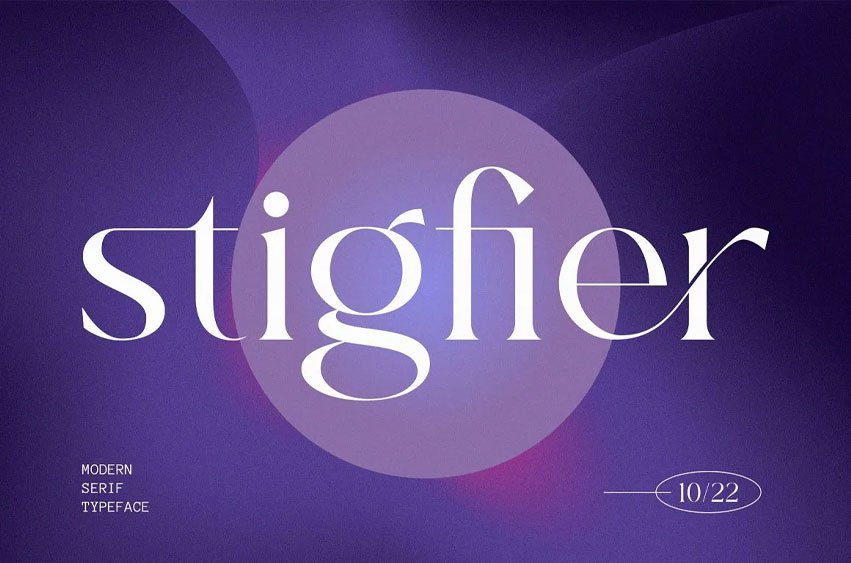
Stigfier Font is a serif font type that has an elegant and modern feel, which is very suitable for displaying very small titles, subtitles and text descriptions. This stigfier is great for writing presentations, about the web or web pages.
Even this font looks cool when used to write an advertisement article, for example articles on social media and so on.